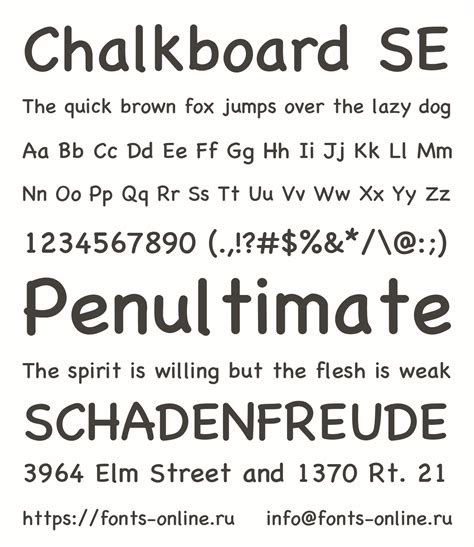
Chalkboard Google Font. Fredericka recalls my college days of nights spent creating handdrawn presentation. Web 20 free chalkboard fonts by patrick ellasos.
Web making the web more beautiful, fast, and open through great typography Web 20 free chalkboard fonts by patrick ellasos. April 4th, 2023 last updated on september 28th, 2023 experimenting. Fredericka recalls my college days of nights spent creating handdrawn presentation.
April 4th, 2023 last updated on september 28th, 2023 experimenting. April 4th, 2023 last updated on september 28th, 2023 experimenting. Web 20 free chalkboard fonts by patrick ellasos. Fredericka recalls my college days of nights spent creating handdrawn presentation. Web making the web more beautiful, fast, and open through great typography